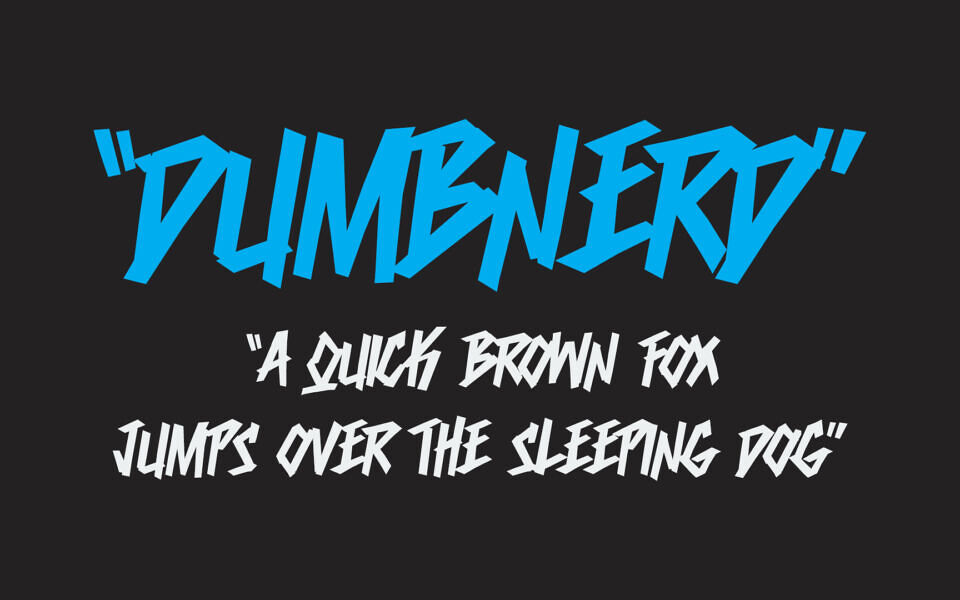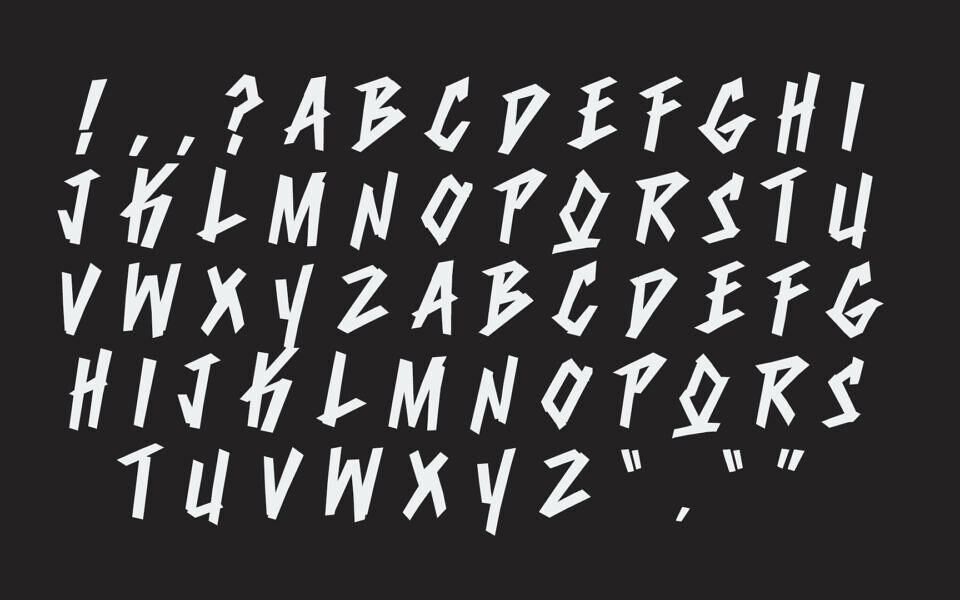
Dumbnerd is a playful graffiti-style font with bold, irregular lettering and a hand-drawn urban personality. Its quirky shapes give designs an energetic, rebellious, and youthful feel, making it a great choice for posters, streetwear graphics, album covers, stickers, gaming artwork, and creative headlines.